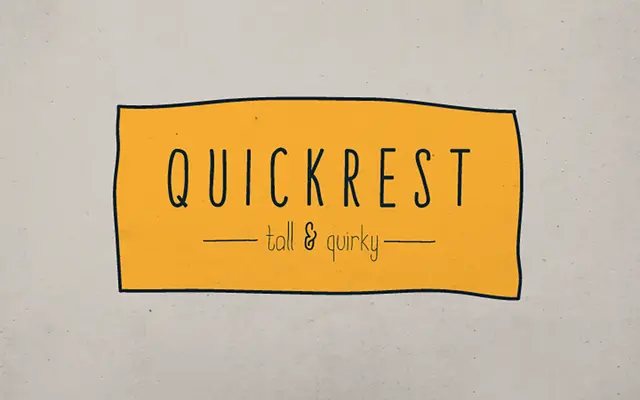
Quickrest
A tall, irregular display family of 10 fonts with a handmade, vintage character across five weights and matching slanted versions.
Each character is drawn with deliberate individuality, giving the family an uneven, crafted quality suited to packaging, branding or editorial work in the handmade or vintage space. Five weights from Thin to Heavy are paired with slanted counterparts, covering a reasonable range of tonal contrast. The feel is casual and expressive rather than precise, which limits its use to contexts where that looseness is intentional.
A tall, quirky display face with deliberate irregularities and a handmade character, placing it firmly in the display category with a craft or vintage subcategory.